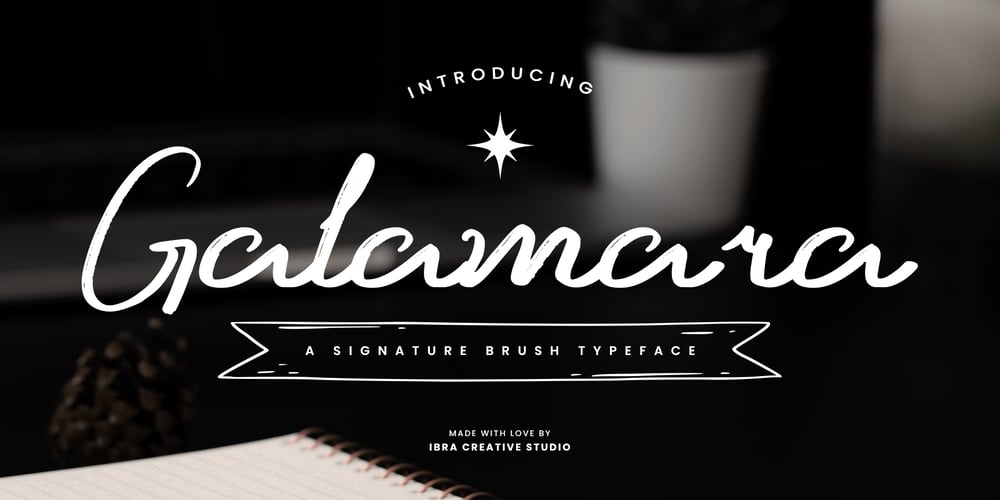
Galamara
Galamara font
Galamara Font Family was designed by Roisatul Azizah and published by IbraCreative. Galamara contains 1 styles and family package options. Galamara – A Signature Brush TypefaceGalamara, a signature brush typeface, embodies the essence of fluid elegance and personalized expression. Its letterforms, crafted with meticulous attention, carry a unique brushstroke texture that evokes a sense of handcrafted authenticity. The strokes gracefully flow, mirroring the organic nuances of a handwritten signature. Galamara strikes a perfect balance between sophistication and approachability, making it an ideal choice for projects seeking a touch of individuality and refined flair. With each character bearing the mark of artistic finesse, this typeface transforms text into a distinctive visual signature, leaving an indelible impression on any design it graces.Galamara is perfect for branding projects, logo, wedding designs, social media posts, advertisements, product packaging, product designs, label, photography, watermark, invitation, stationery, game, fashion and any projects.Fonts include multilingual support for; Afrikaans, Albanian, Czech, Danish, Dutch, English, Estonian, Finnish, French, German, Hungarian, Italian, Latvian, Lithuanian, Norwegian, Polish, Portuguese, Slovak, Slovenian, Spanish, Swedish.